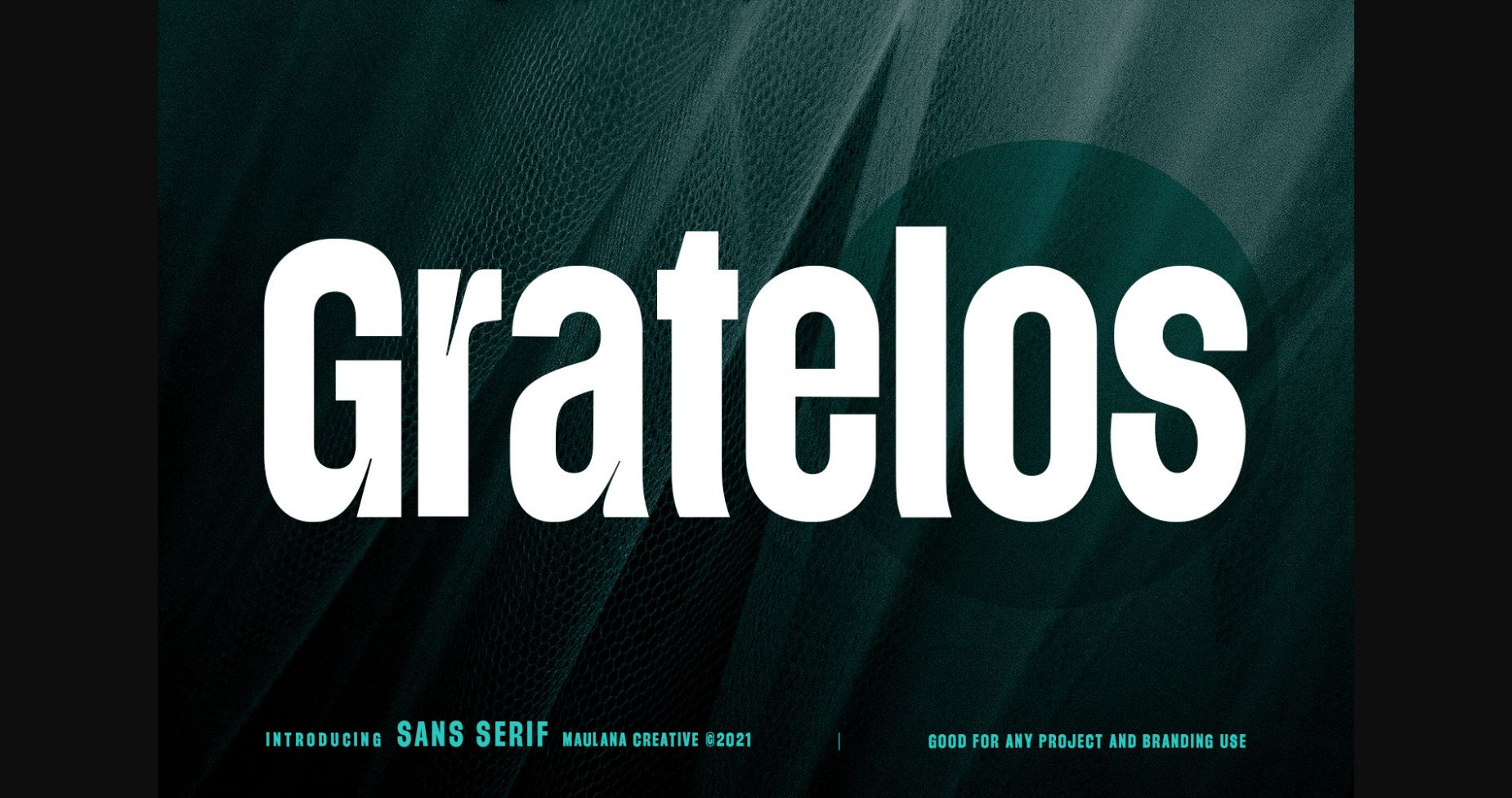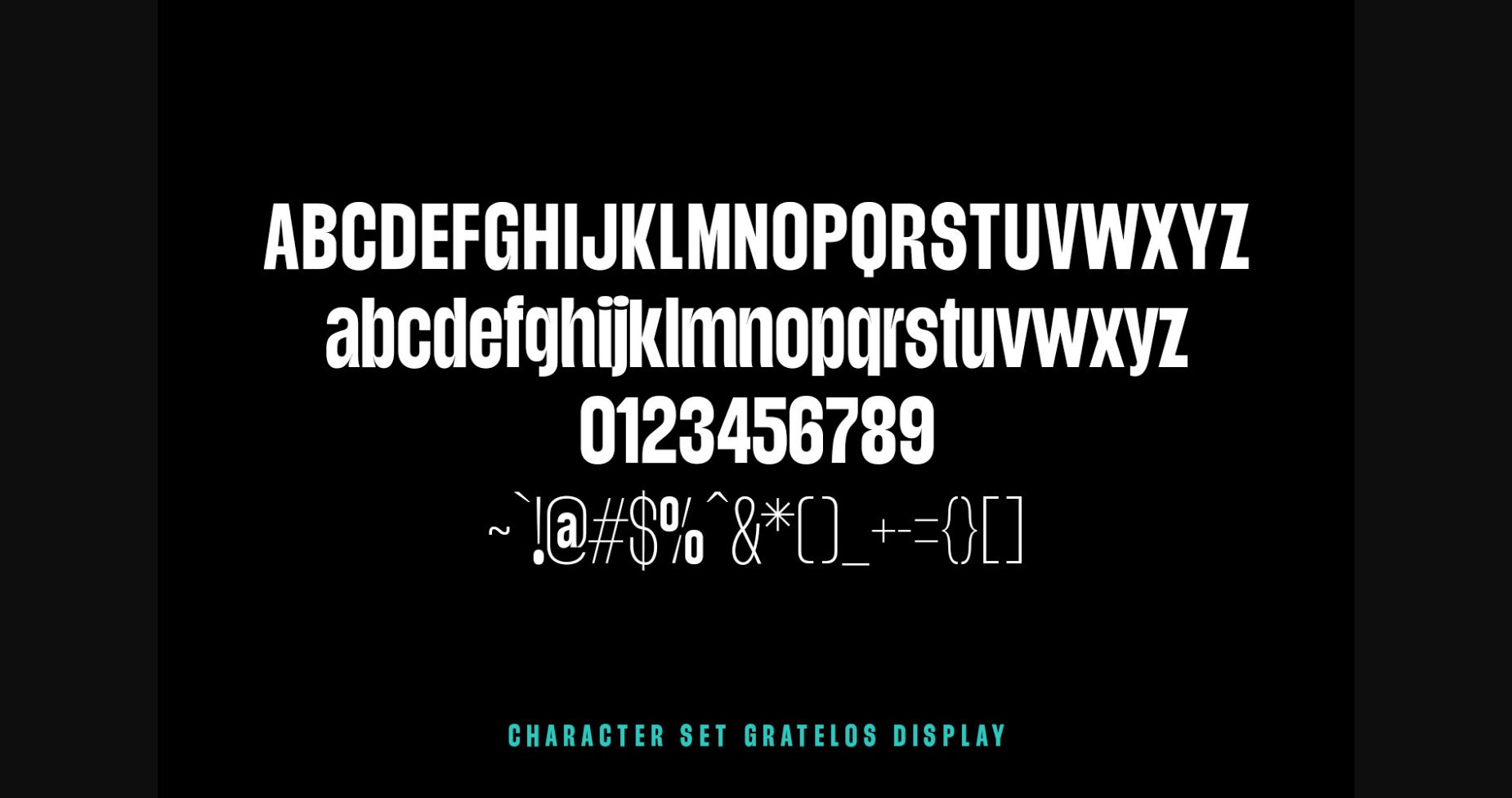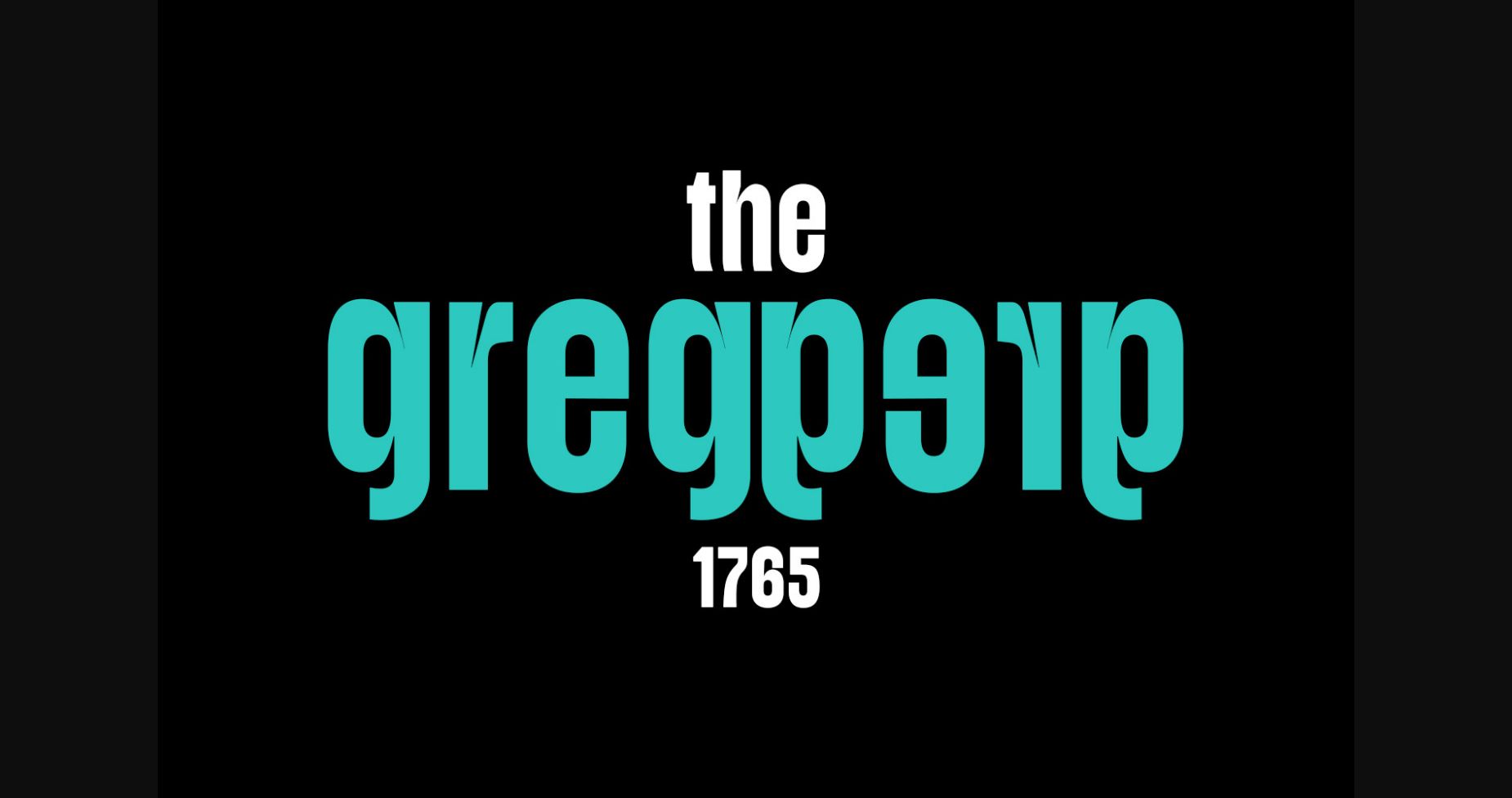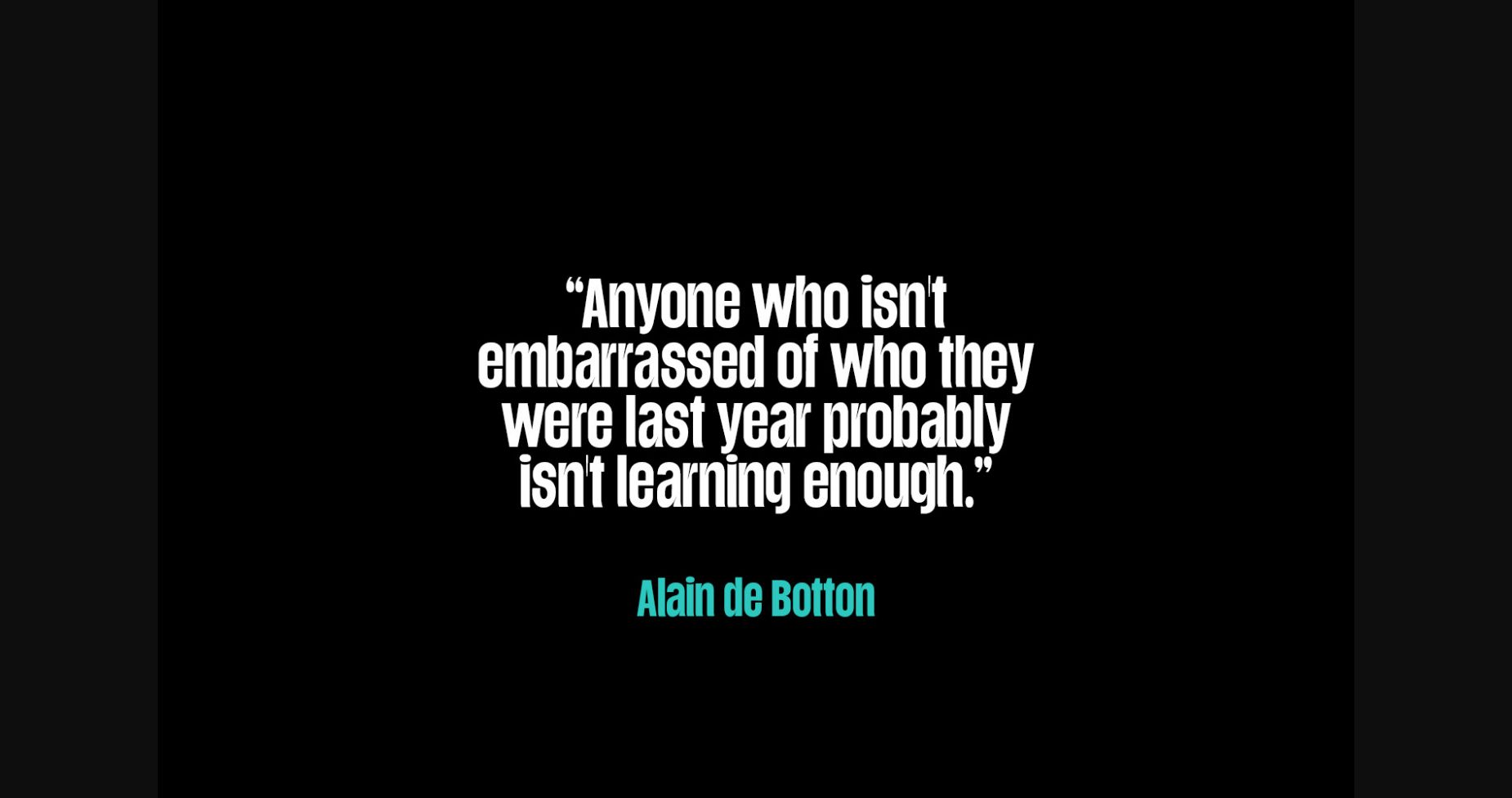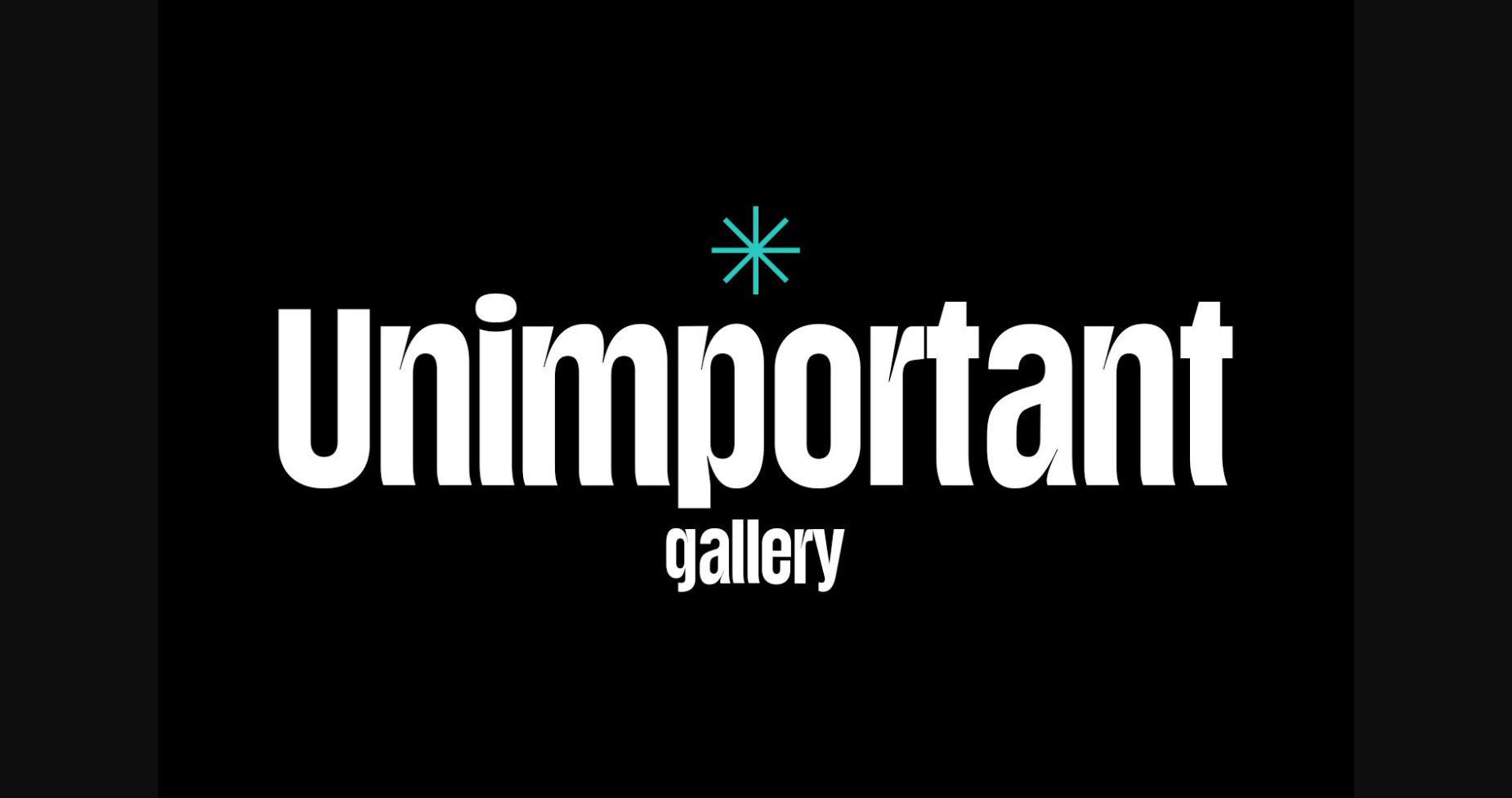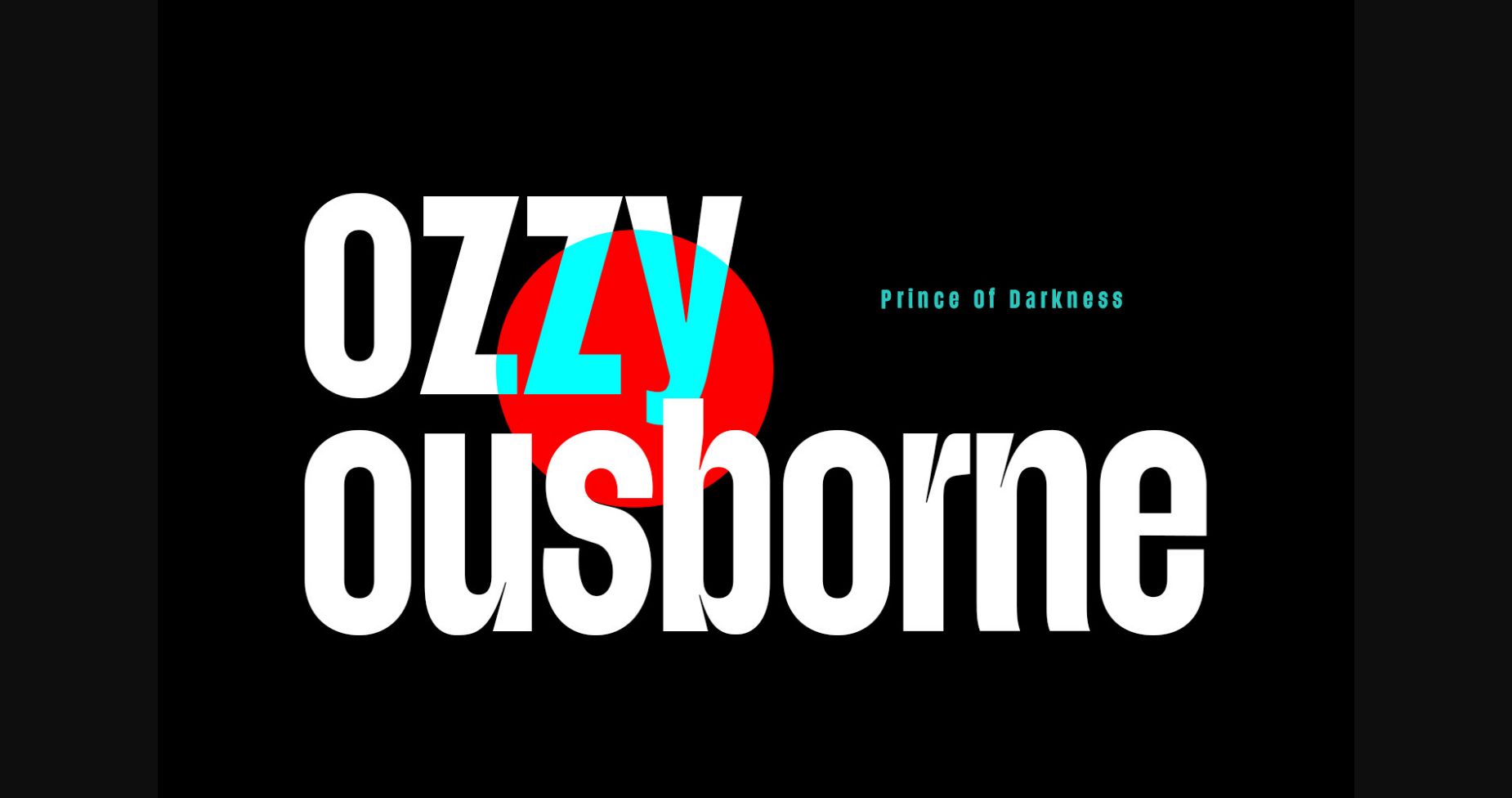
About Gratelos Font
Gratelos is a modern sans serif font with a condensed bold stroke, fun characters, and unique ligatures. This font is good for logo design, Social media, Movie Titles, Books Titles, short text, even long text. Make stunning work with Gratelos!